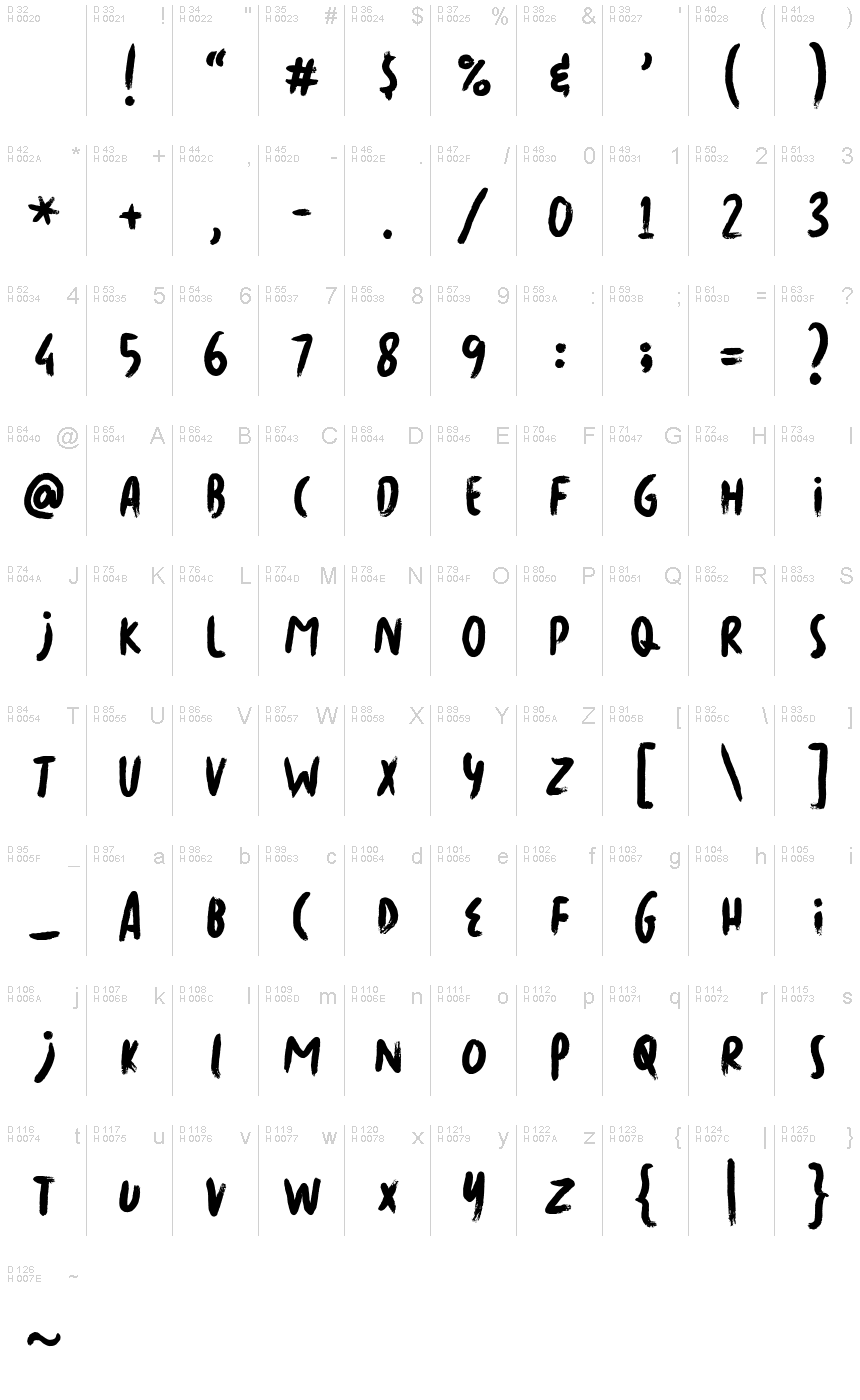
PARIS REBEL
Paris Rebel font by Excellent Ritma Florendia is a condensed brush font with an organic, youthful, and fun look. This eye-catching typeface exudes an edgy and rebellious vibe while maintaining a gritty artistic appeal. Paris Rebel welcomes the viewer to the urban world of chaotic vibes and free spirits. The letters are textured with thick irregular lines that remind us of scattered brush strokes.
A free and stylish product like this can add life into posters, headlines, websites, logos, social media posts, flyers, paragraphs in books or magazines; as well as other advertising materials. Give this energetic font a try to nail that desired impressive look for your next project!
**Features:**
- All caps font with lowercase alternatives
- Use uppercase (caps) for standard characters and lowercase for alternatives to combine them and create an impressive look!
- Complete set of standard display characters including punctuation